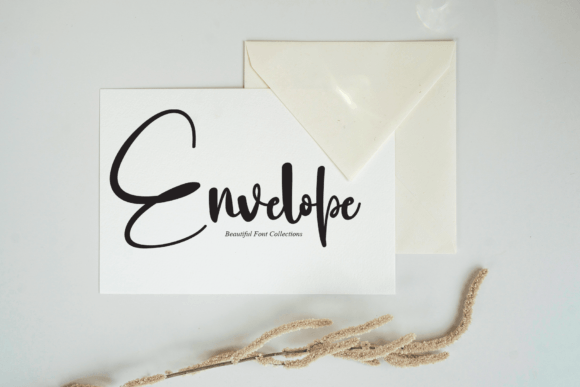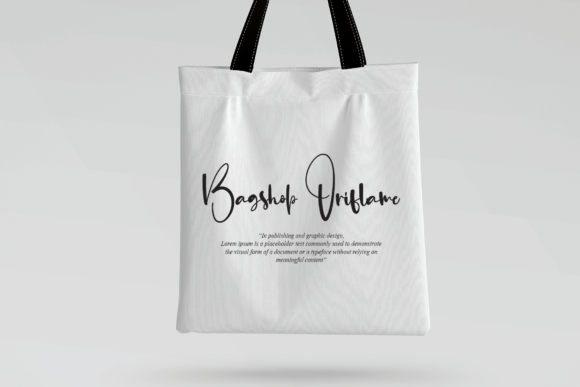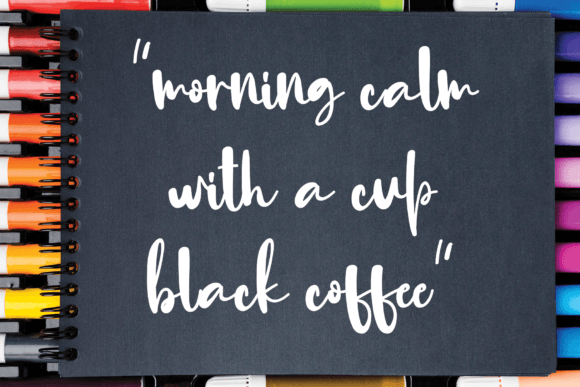
About Softball Font
Softball is a simple yet uniquely crafted handwritten font designed to impart an extraordinary feel to your designs. Its simplicity adds a touch of charm, making it a versatile choice for a wide range of applications. Whether you’re working on wall displays, wedding invitations, social media posts, logos, advertisements, product packaging, product designs, labels, photography, watermarks, invitations, stationery, and more, Softball is tailored to elevate and make your designs outstanding.
The distinctive charm of Softball lies in its simplicity, allowing it to seamlessly integrate into various design contexts while adding a touch of creativity. Envision incorporating Softball into your wall displays, where its straightforward style enhances visual appeal without overshadowing the overall design.
For wedding invitations and social media posts, Softball brings a touch of warmth while maintaining a friendly and approachable demeanor. Its handwritten aesthetic adds a personal and authentic feel, making your content stand out with a touch of handcrafted elegance.
In branding, logos, and product packaging, Softball becomes a versatile tool, offering a balance between simplicity and creativity. Its adaptability ensures that your brand identity remains cohesive across different touchpoints, from labels to advertisements.
Whether applied to photography, watermarks, or stationery, Softball provides a simple and outstanding touch that complements various visual elements. Its unpretentious nature becomes a strength, allowing your designs to shine without unnecessary complexity.
In conclusion, Softball is more than just a font; it’s a design asset crafted to enhance your creations with an extraordinary feel. Elevate your designs across diverse applications, and let Softball be the key to making your projects outstanding and memorable.